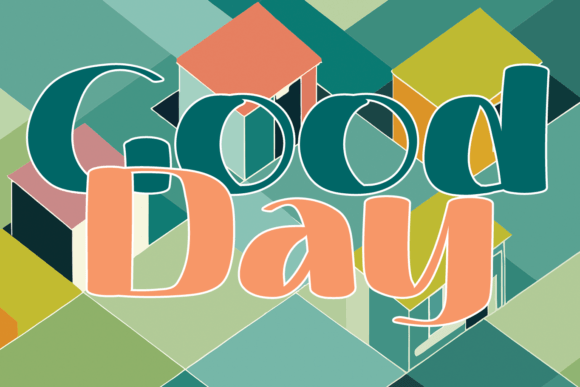
Introducing Good Day Font: The Perfect Blend of Clean and Quirky
Are you on the hunt for a font that is both clean and quirky? Look no further than Good Day Font! This adorable display font is perfect for designers and crafters alike, offering a unique blend of simplicity and playfulness that is sure to make your projects stand out.
What is Good Day Font?
Good Day Font is a cute display font that is designed to add a touch of personality to your designs. With its clean lines and quirky charm, this font is ideal for a wide range of projects, from logos and branding to social media graphics and crafty DIY projects.
Key Features of Good Day Font
- Clean and Simple: Good Day Font features clean lines and a simple design, making it easy to read and perfect for use in a variety of projects.
- Quirky and Playful: Despite its clean design, Good Day Font has a quirky and playful edge that sets it apart from more traditional fonts.
- Highly Versatile: Good Day Font is perfect for use in a wide range of projects, from logos and branding to social media graphics and crafty DIY projects.
- Easily Customizable: With Good Day Font, you can easily customize the font to fit your needs, from adjusting the size and color to adding your own unique touches.
Uses for Good Day Font
Good Day Font is a highly versatile font that can be used in a wide range of projects, including:
- Logos and Branding: Use Good Day Font to create a unique and memorable logo for your business or brand.
- Social Media Graphics: Add a touch of personality to your social media graphics with Good Day Font.
- Crafty DIY Projects: Good Day Font is perfect for use in crafty DIY projects, such as handmade cards, invitations, and decorations.
- Signs and Posters: Use Good Day Font to create eye-catching signs and posters for your business or event.
Tips for Using Good Day Font
Here are a few tips for getting the most out of Good Day Font:
- Experiment with Different Sizes: Good Day Font looks great in a variety of sizes, from small and delicate to large and bold.
- Play with Color: Add some extra personality to your designs by experimenting with different colors and color combinations.
- Mix and Match: Don’t be afraid to mix and match Good Day Font with other fonts and design elements to create a unique look.
Good Day Font is a unique and versatile font that is perfect for designers and crafters alike. With its clean lines, quirky charm, and highly customizable design, this font is sure to become a favorite in your design arsenal. So why wait? Download Good Day Font today and start adding a touch of personality to your designs!